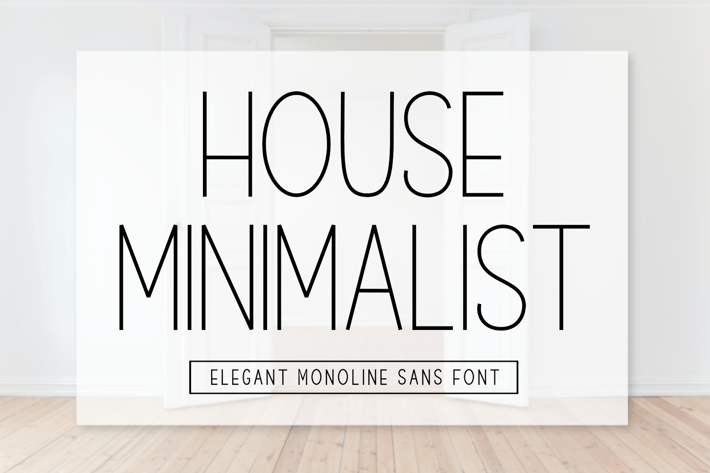
House Minimalist - Elegant Monoline Font
House Minimalist is a refined monoline font that embodies elegance and modernity. With clean lines and a minimal structure, it’s ideal for high-end branding, stylish logos, architecture portfolios, and minimalist editorial layouts.
Its timeless design brings sophistication to any visual identity while maintaining clear readability.
Key Features:
- Elegant monoline letterform
- Perfect for logos, branding, and fashion
- Balanced minimalist structure
- Professional and versatile look
- Uppercase & lowercase characters
- Numbers and punctuation
- Multilingual support